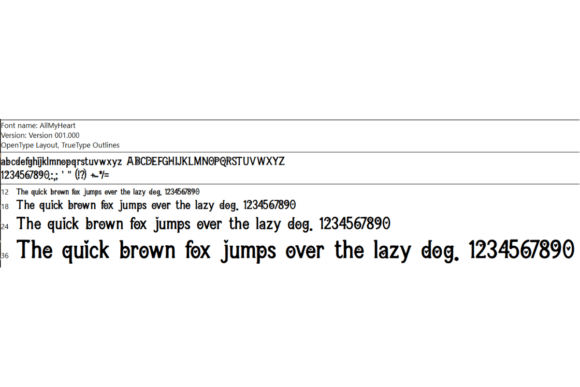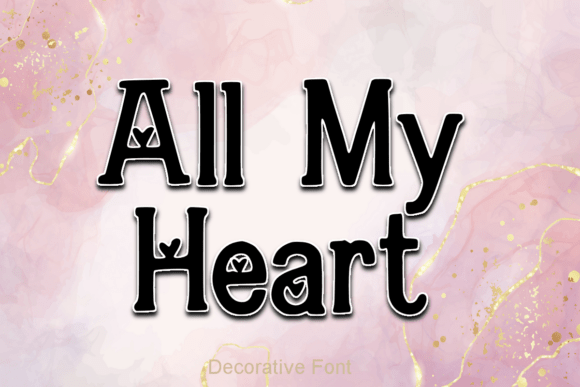
Discover the Charming All My Heart Font: A Perfect Choice for Romantic Designs
Have you ever been working on a project, pouring your heart and soul into it, only to struggle with finding the perfect font to match your vision? I certainly have! Recently, I was tasked with designing a Valentine’s Day card for a client, and I wanted to create something truly special. That’s when I stumbled upon the All My Heart font, and it instantly captured my heart ❤️.
A Font that Speaks from the Heart
The All My Heart font is a charming display serif font that is artistically adorned with delightful heart motifs. Its bold lines and touch of sweetness make it perfect for romantic designs, Valentine’s Day cards, wedding invitations, or heartfelt gifts. What sets it apart is its unique heart-shaped accents nestled into letters, adding a layer of love and warmth to any project.
An Honest Review: What I Love and What to Consider
Here’s what I love about the All My Heart font:
• ✨ Unique and charming heart motifs that add a touch of personality to any design
• ✅ Perfect for romantic designs, Valentine’s Day cards, and wedding invitations
• 💕 Beautifully stands out in both print and digital media
• 🎉 Easy to read and understand, even in smaller font sizes
As for quirks or limitations, here are a few to consider:
• 🤔 The font’s unique heart motifs may not be suitable for all design projects, such as formal or corporate designs
• ⚠️ The font’s bold lines may not be ideal for very small font sizes or body text
The Story Behind All My Heart: A Designer’s Inspiration
The All My Heart font was designed with passion and love, inspired by the joy and beauty of heartfelt expressions. The designer aimed to create a font that would bring a touch of warmth and personality to any design, making it perfect for romantic occasions and special moments. Whether you’re a designer, crafter, or creative hobbyist, this font is sure to capture your heart and inspire your creativity.
Is the All My Heart font suitable for body text? While the All My Heart font is beautiful and elegant, it’s best suited for display text or headings. For body text, you may want to choose a clearer, more legible font.